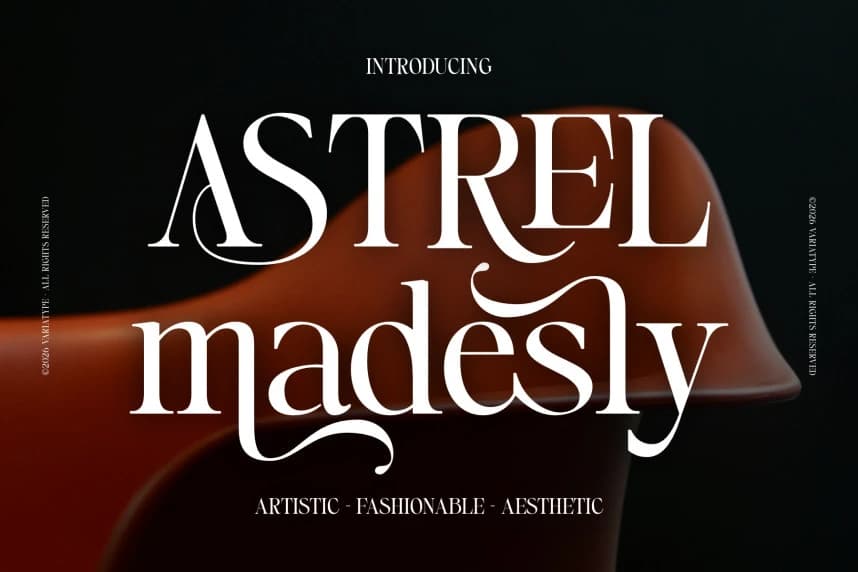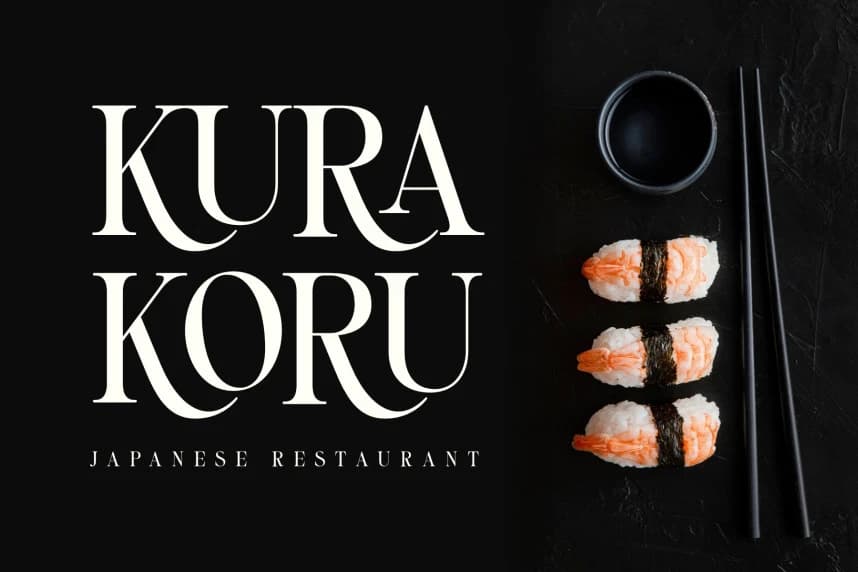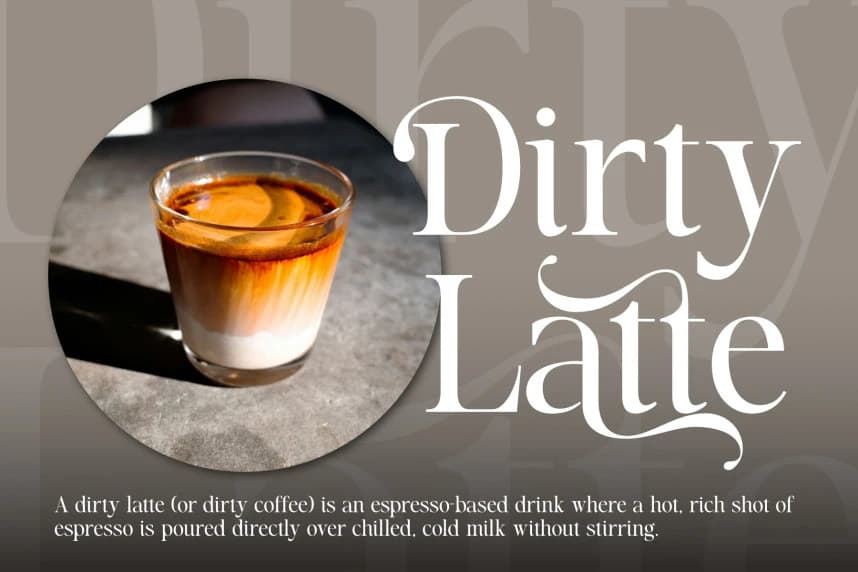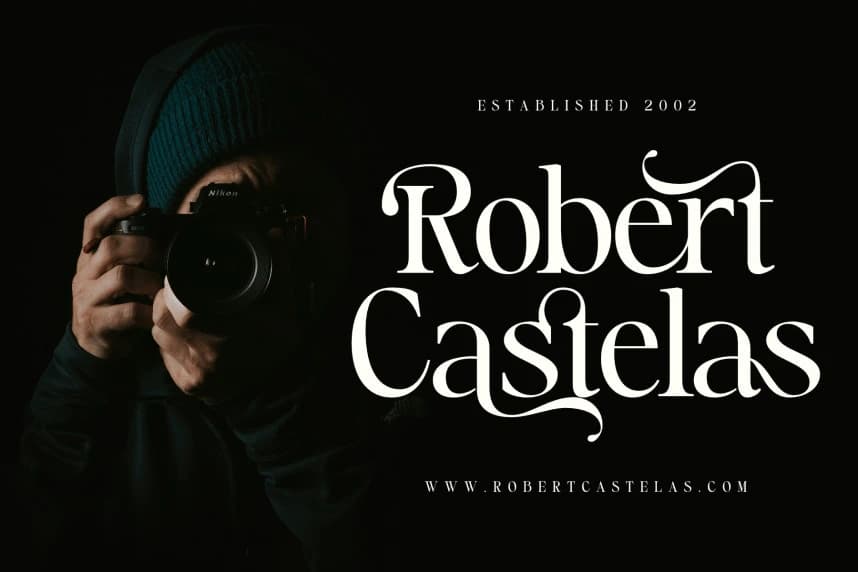
Astrel Madesly Font
Astrel Madesly Font is an artistic display serif that combines elegance with modern aesthetic charm, featuring beautifully crafted ligatures and stylish alternates designed to create luxurious and expressive typography effortlessly.